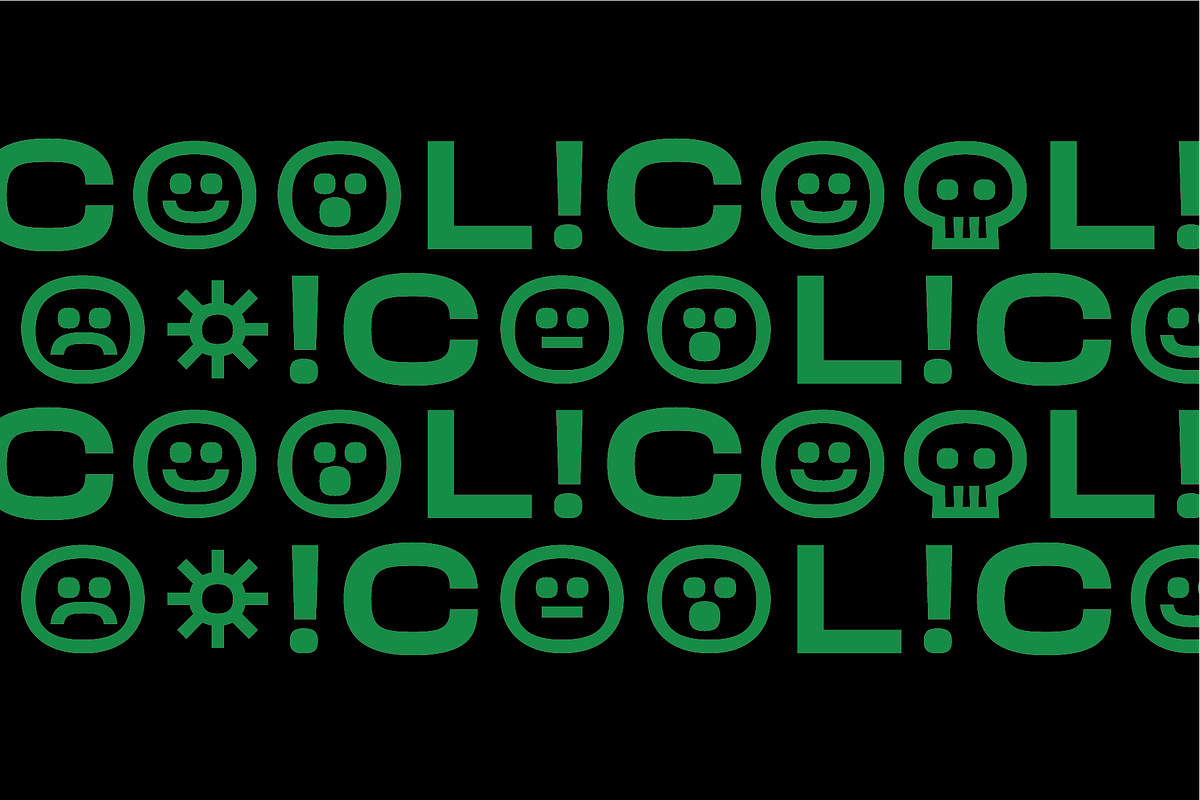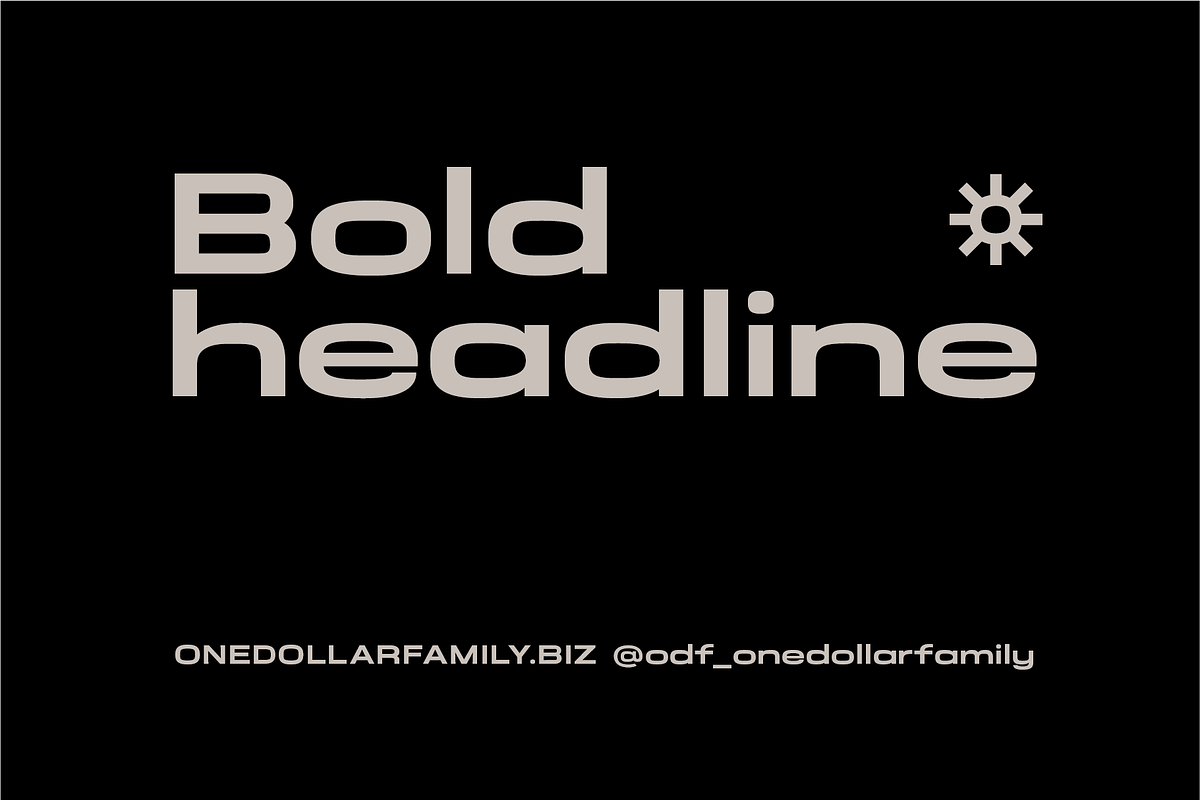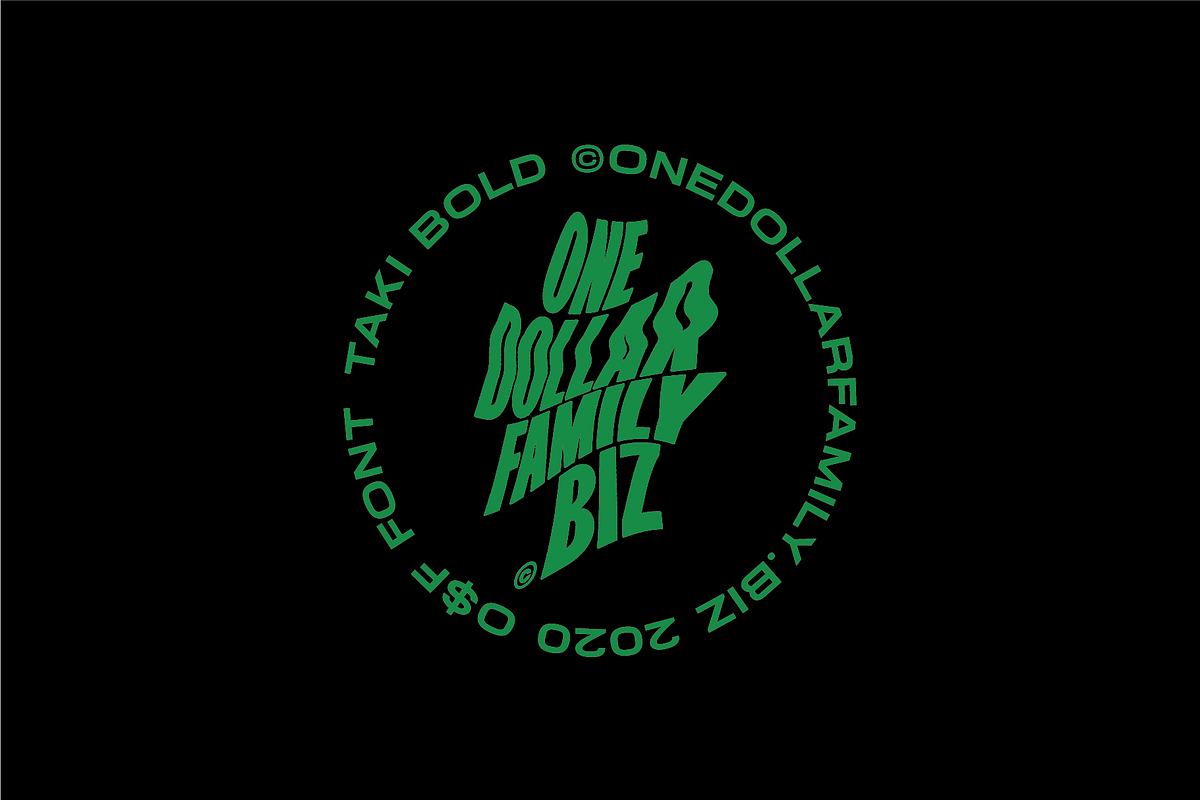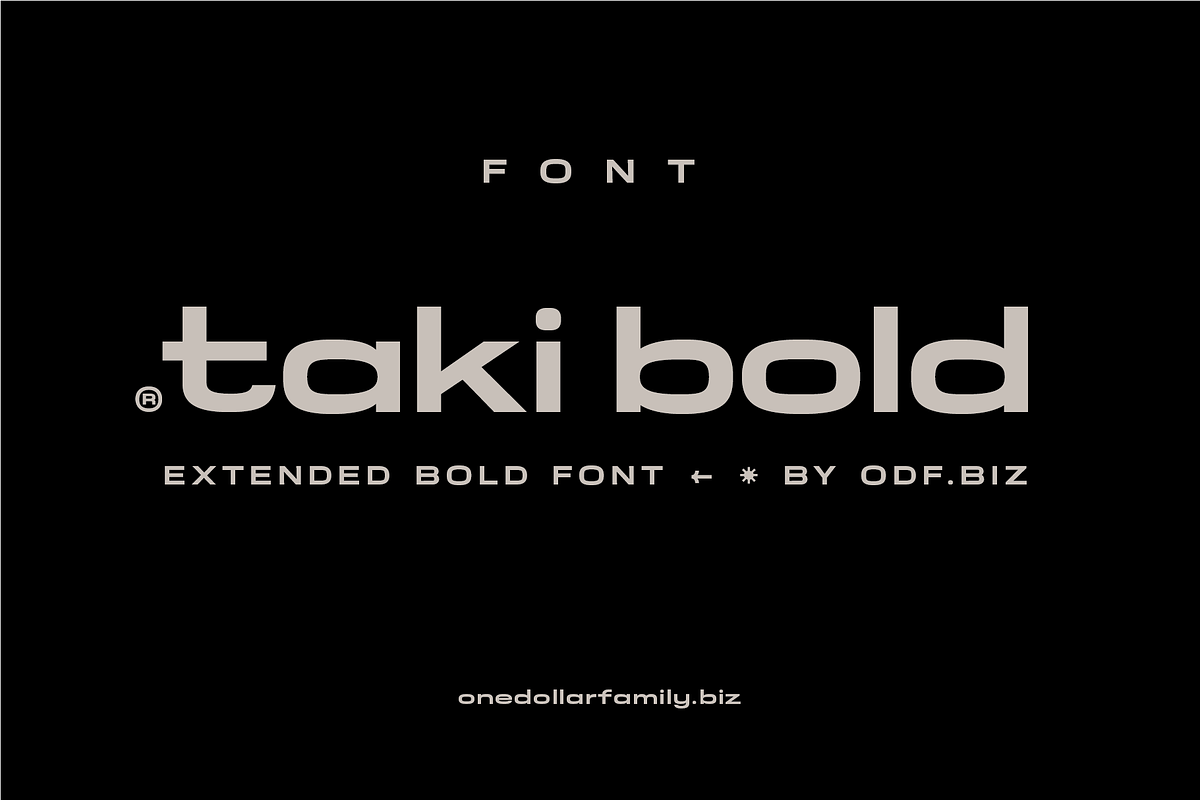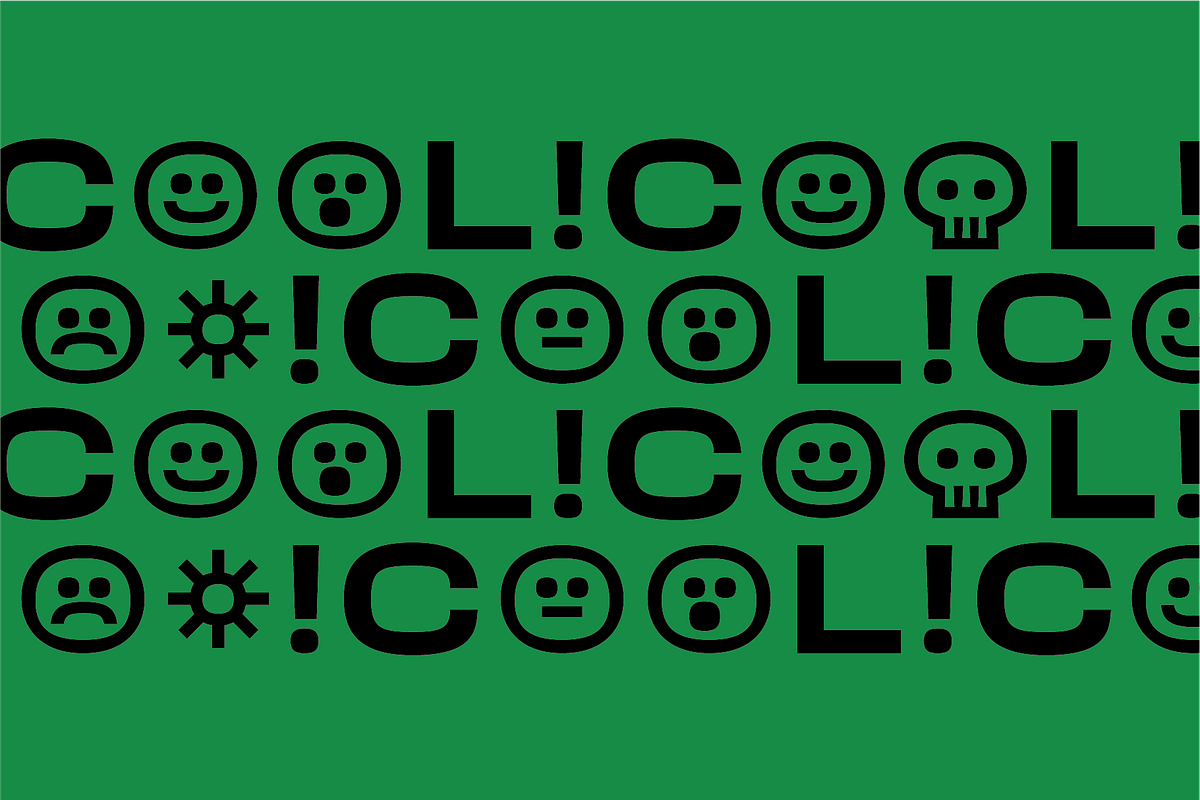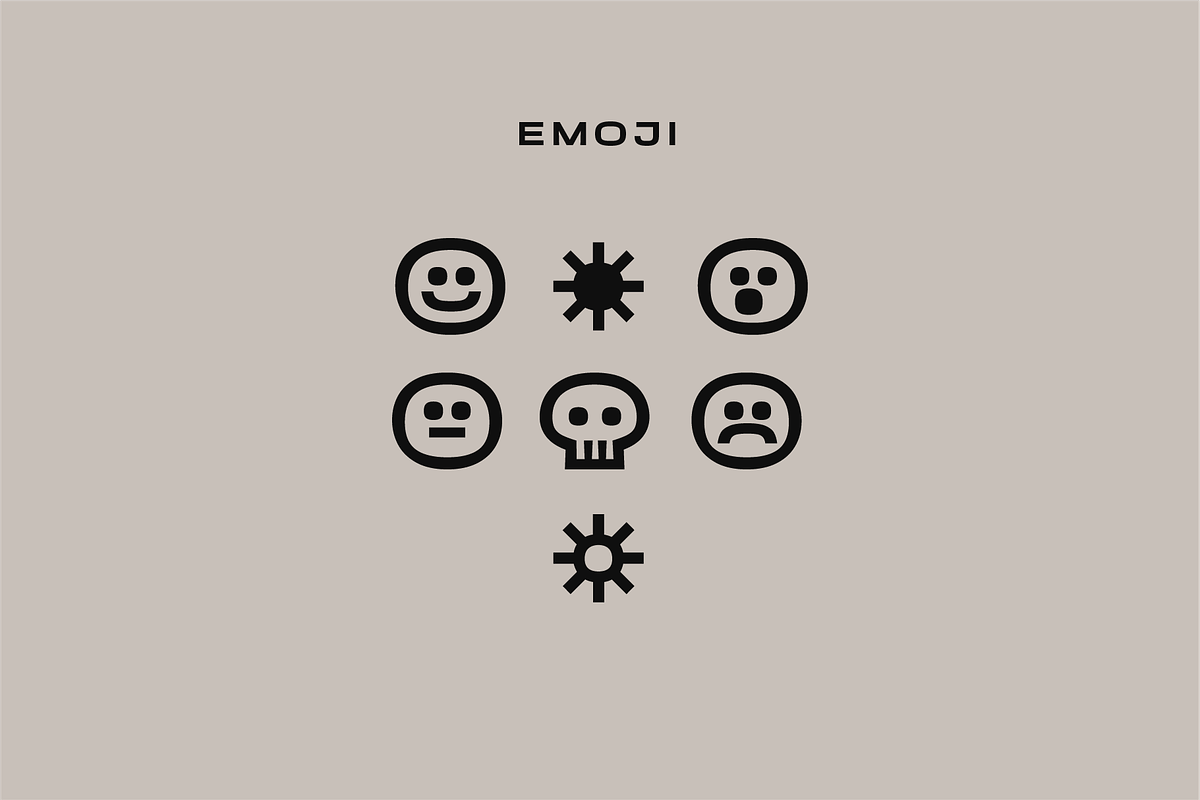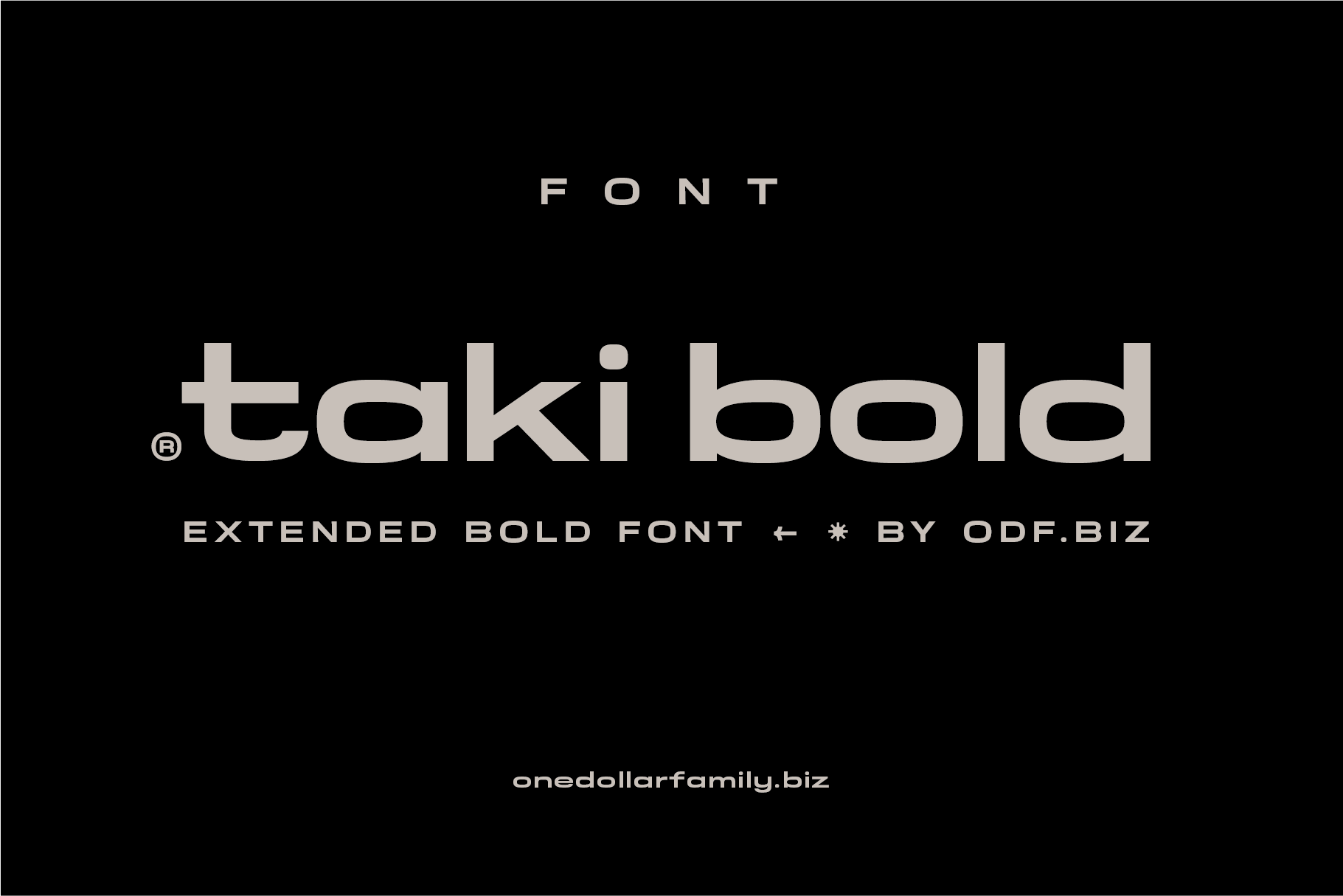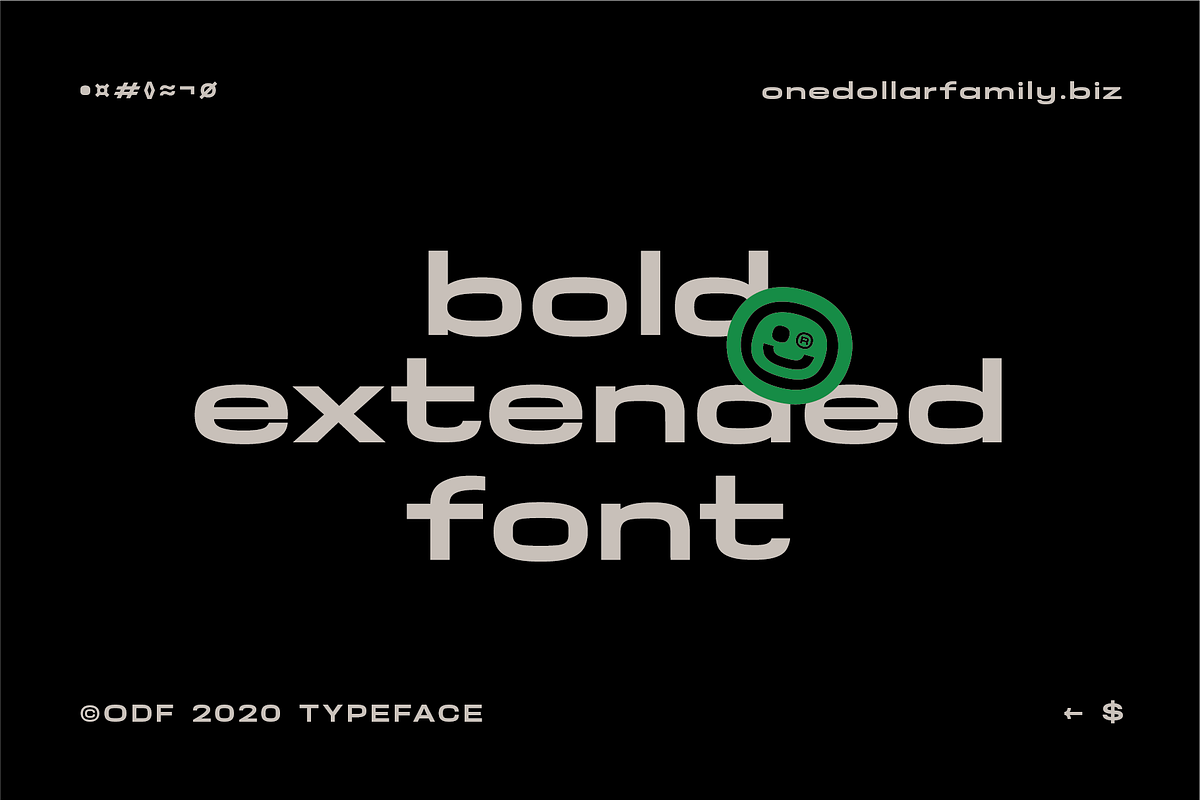
TAKI BOLD [FONT]
"Taki" is an extended bold font. Great for headline and short text block.
Glyphs set:
- Basic
- Central Europe
- numbers
- math symbols
- currency
- arrows
- emoji